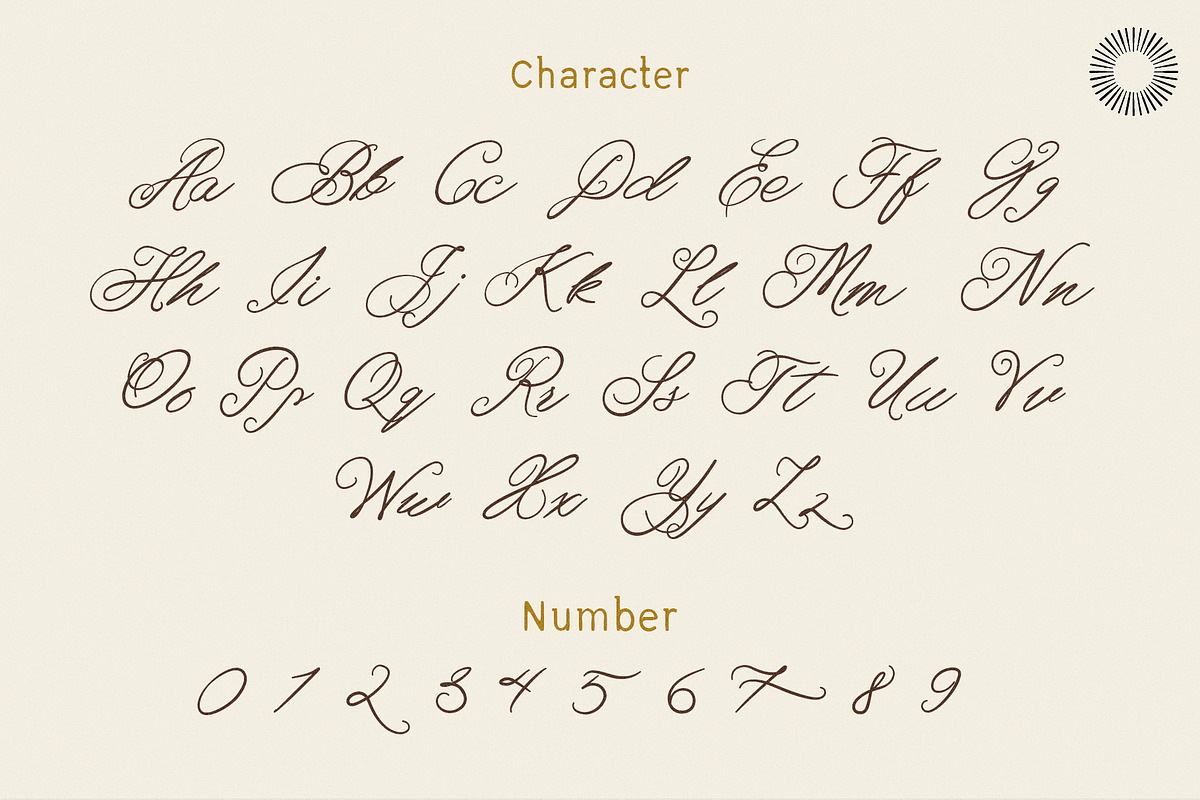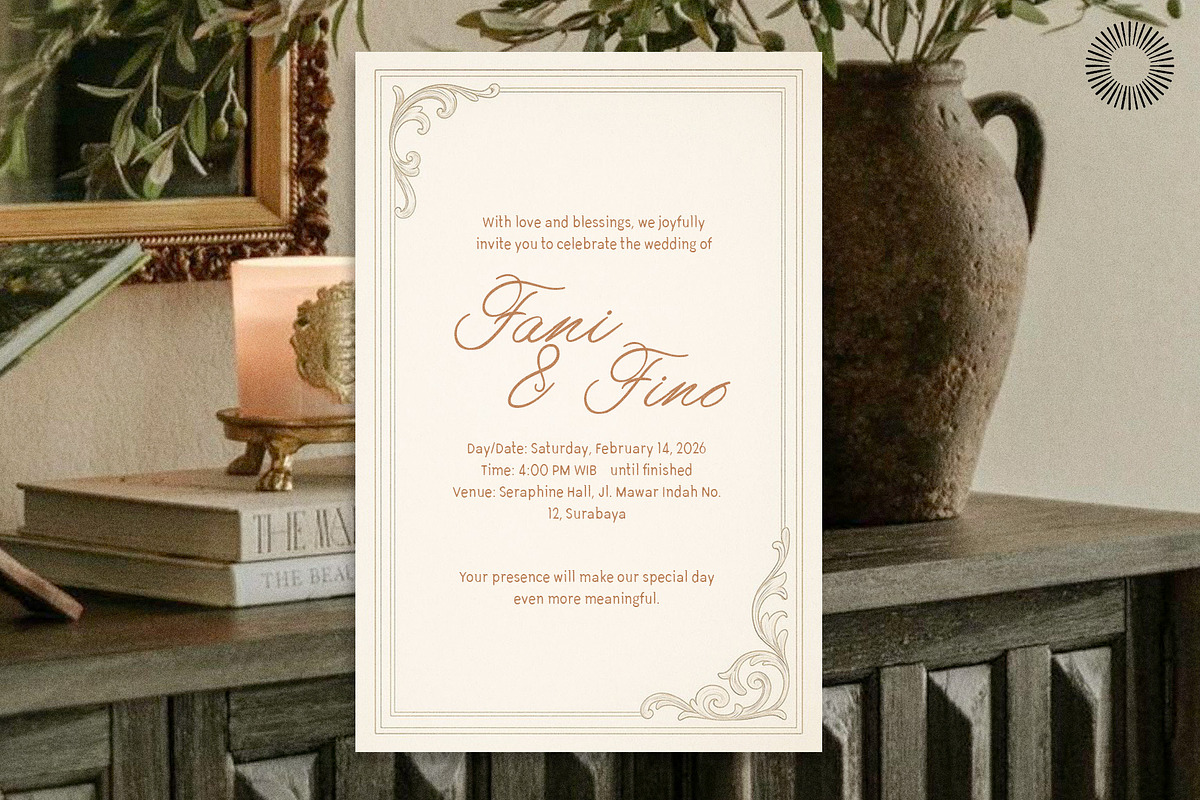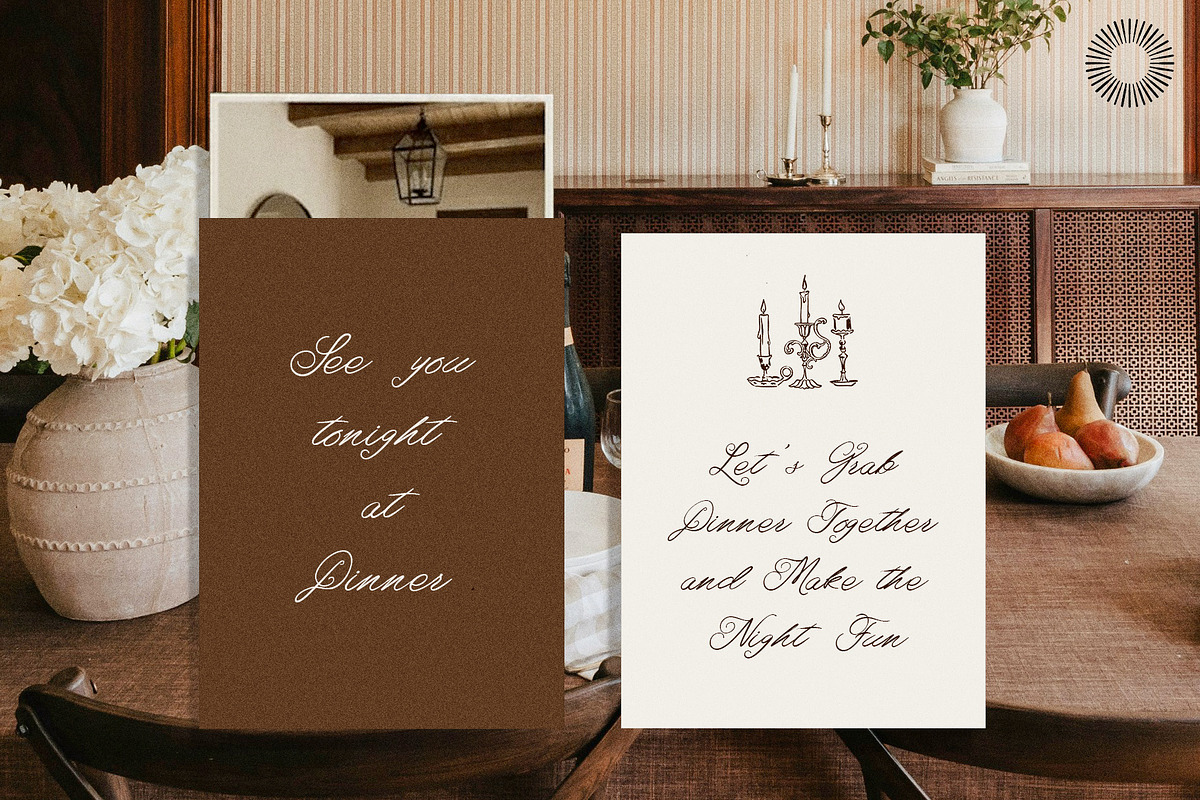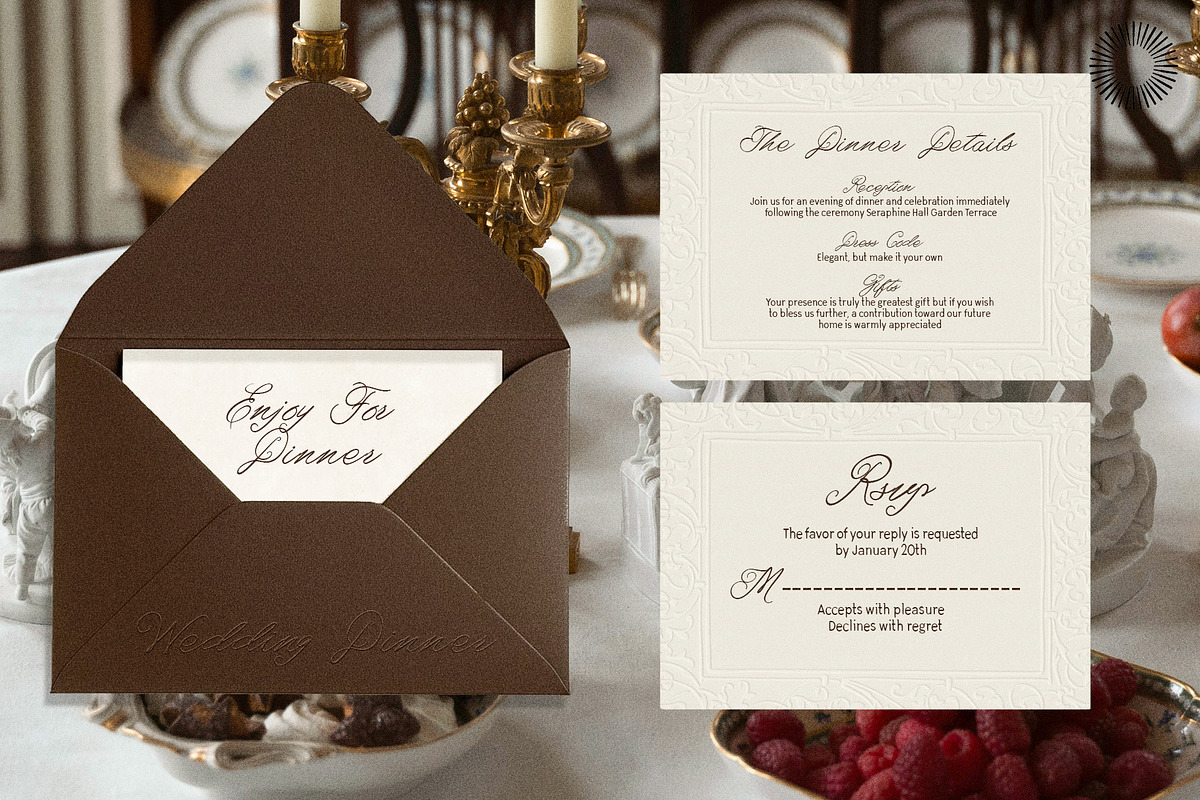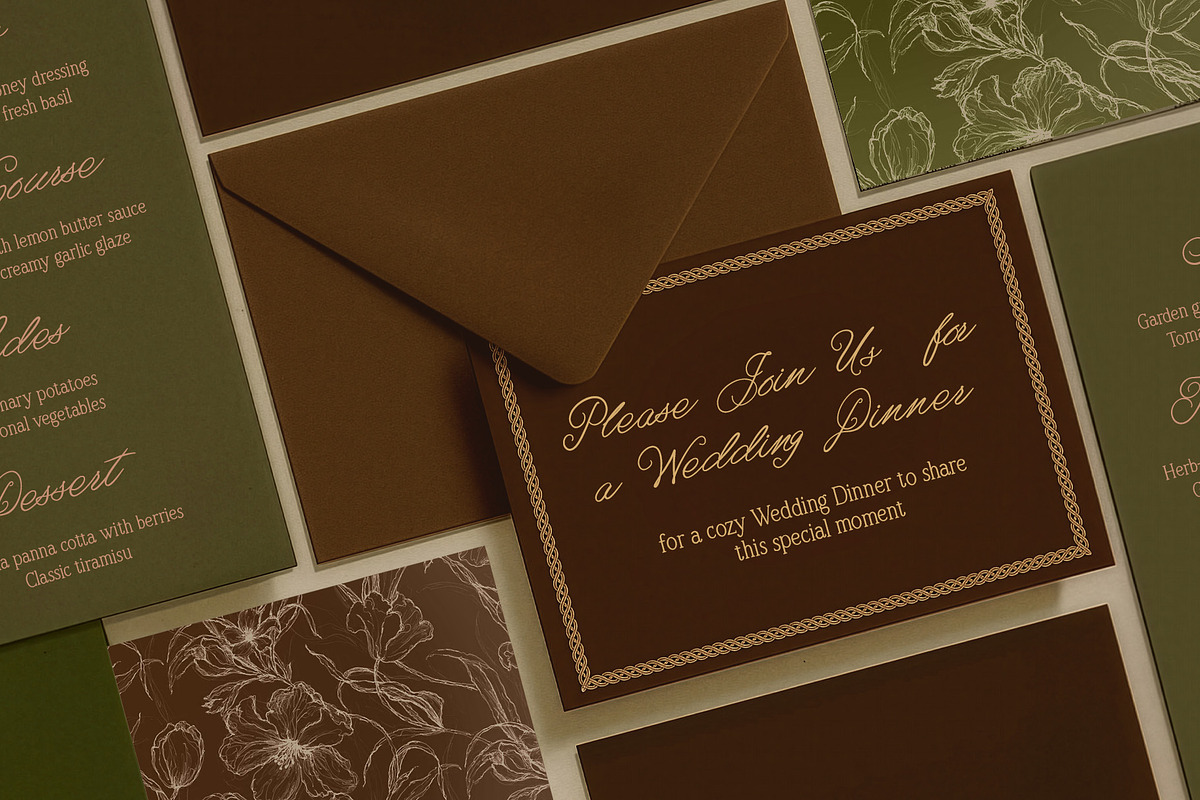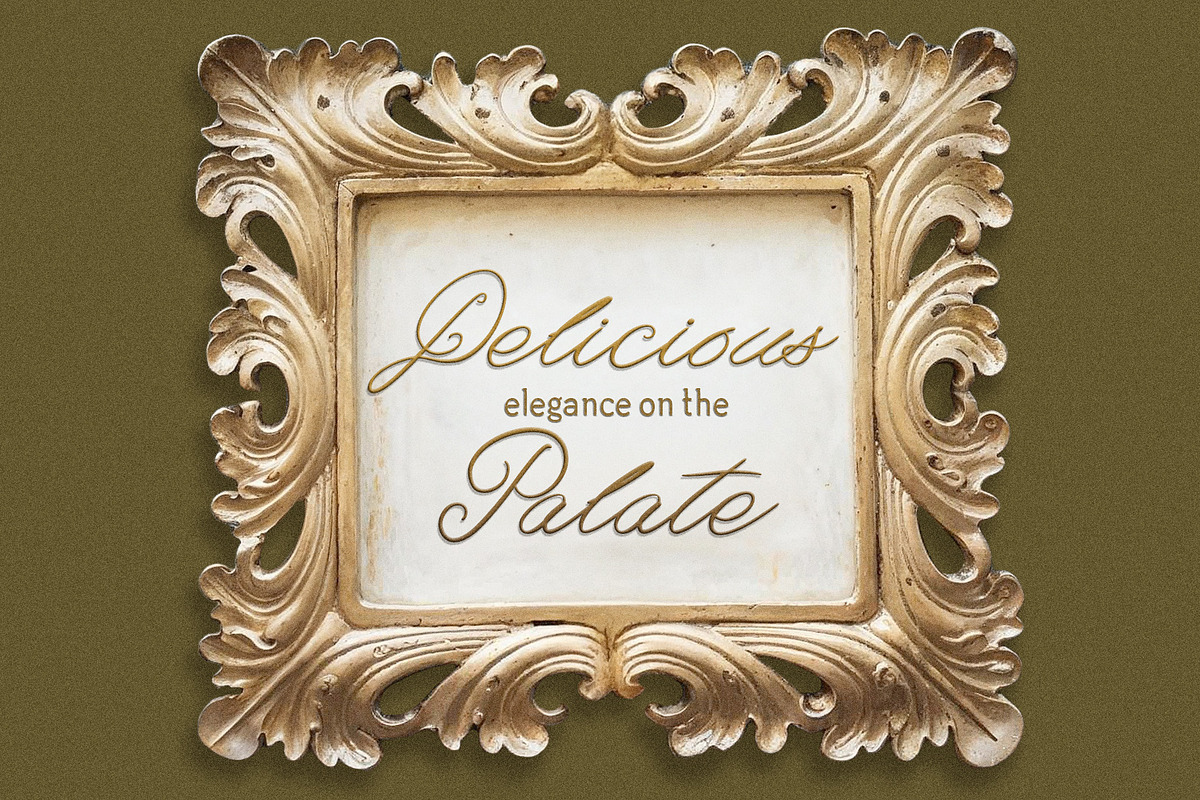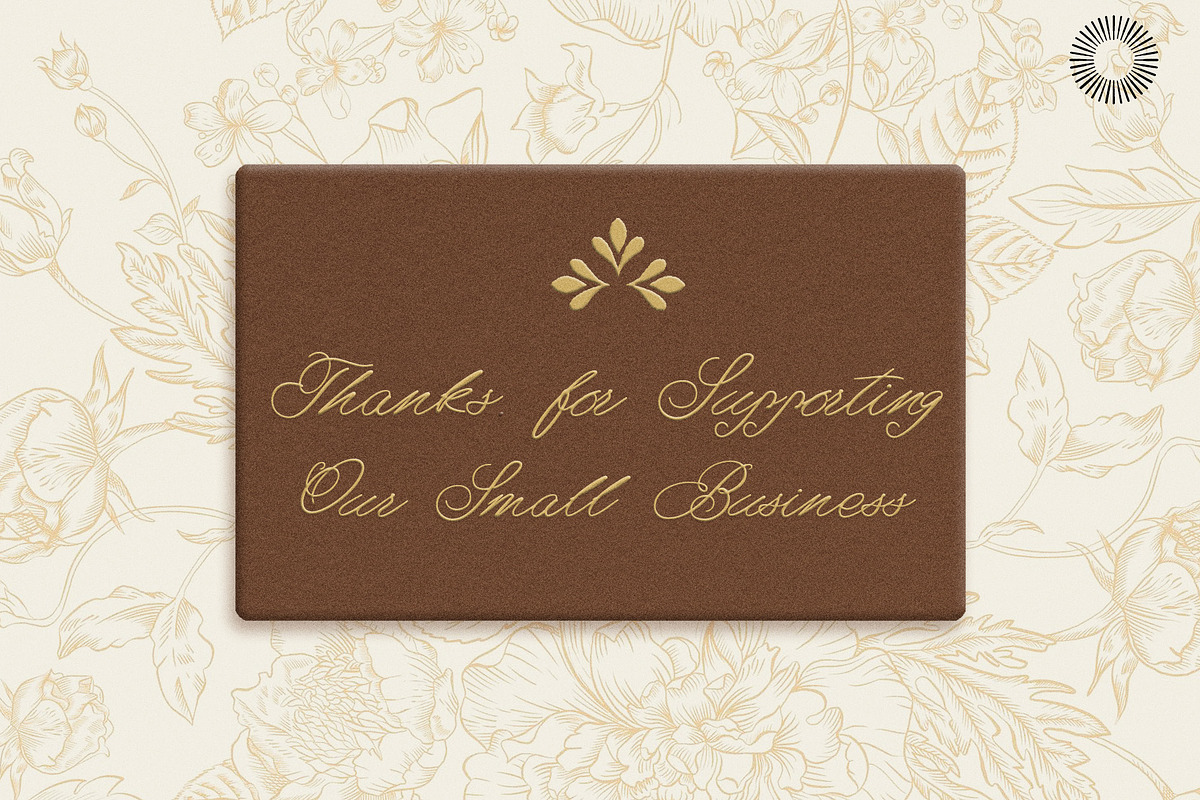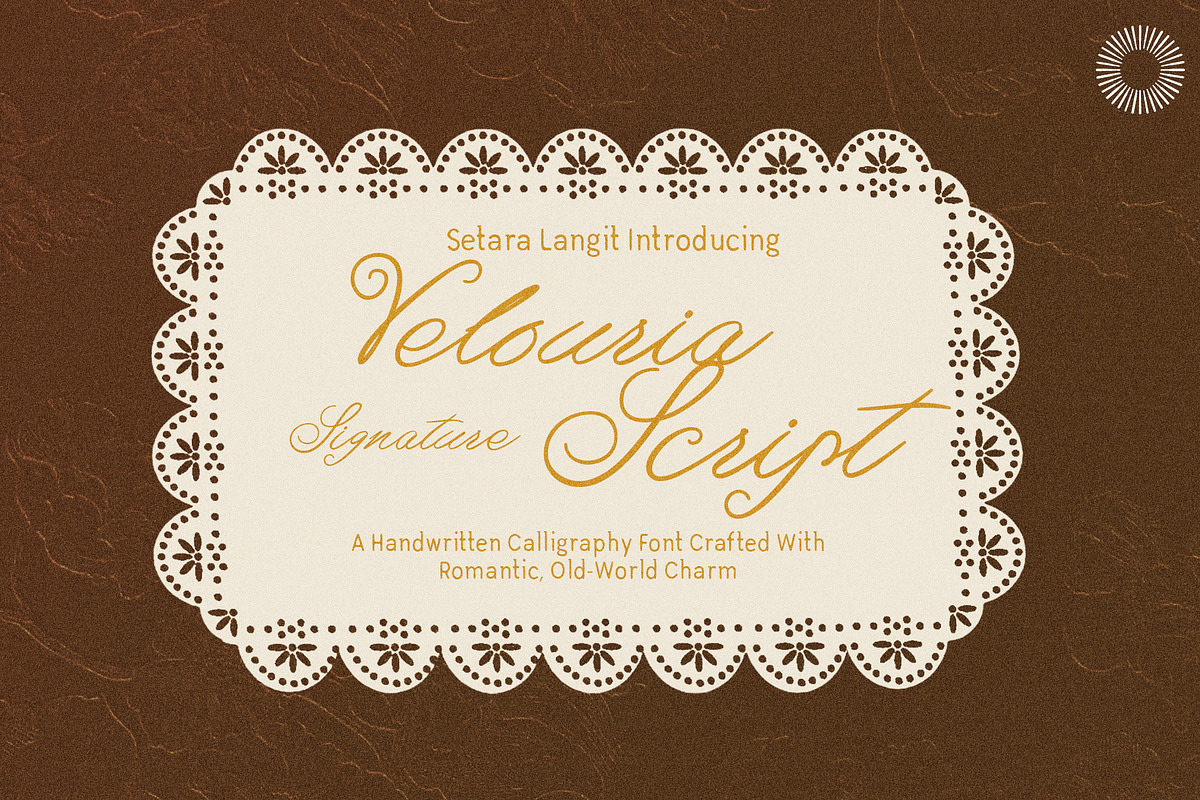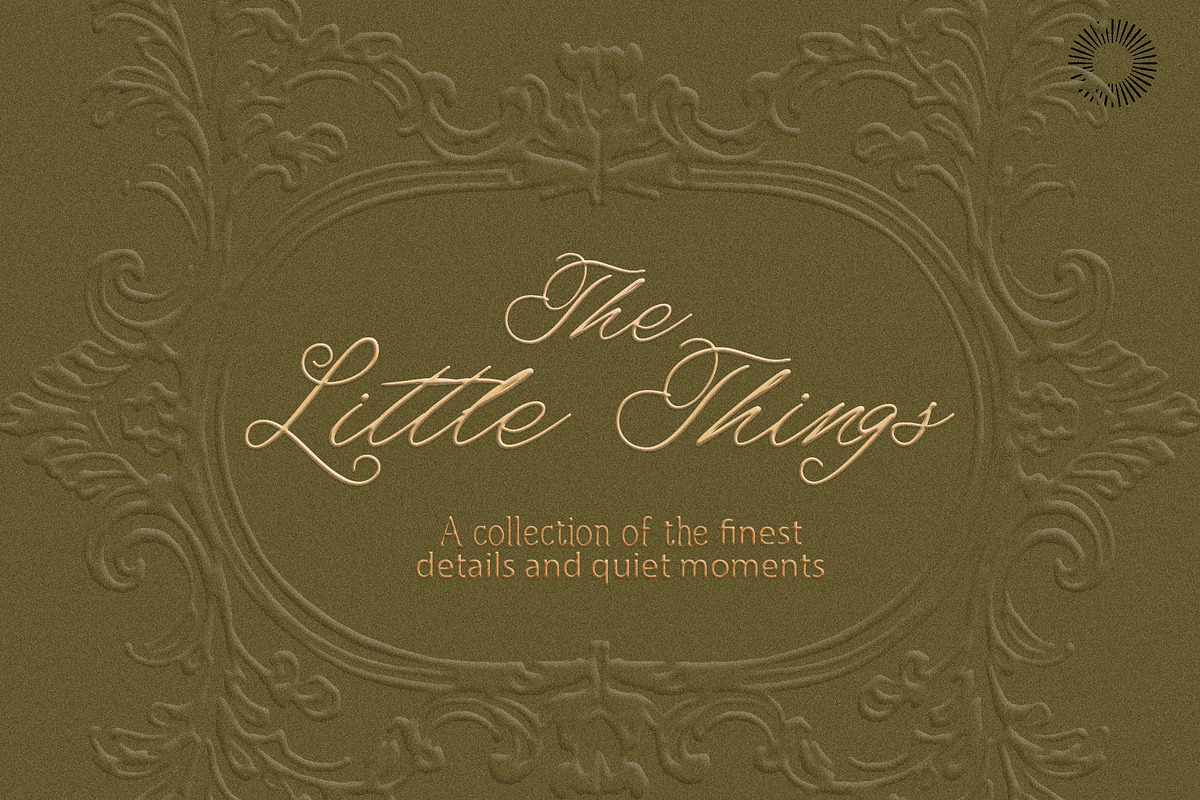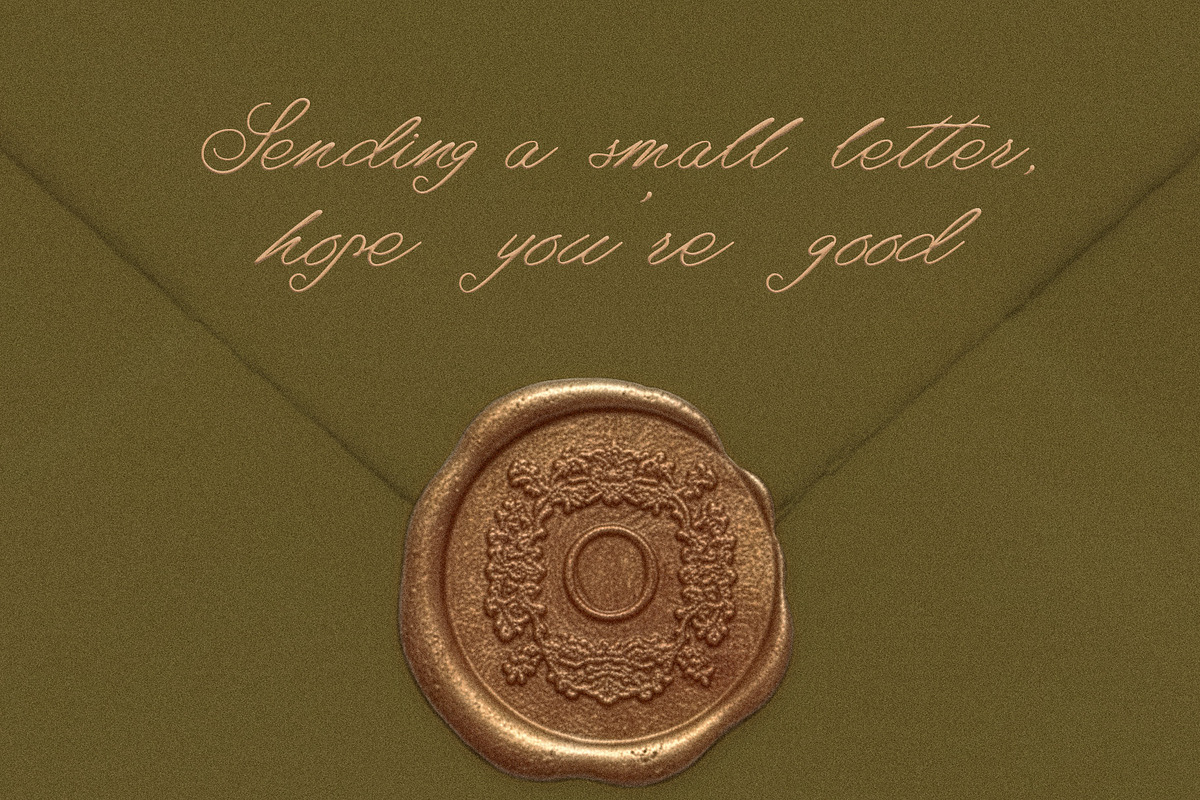
Velouria Script
Velouria Signature Script is a handwritten calligraphy font inspired by timeless romance and refined old-world elegance. Designed with flowing strokes, natural pressure contrast, and graceful swashes, Velouria captures the intimate beauty of a personal signature with a luxurious vintage soul. Each letterform is carefully drawn to feel organic, expressive, and smoothly connected, perfect for designs that demand warmth, authenticity, and sophistication. Velouria is not a rigid formal script; it leans into natural imperfections to keep your work feeling human and alive.
This font works beautifully for:
- Branding & logo design
- Wedding invitations & stationery
- Beauty, fashion & lifestyle packaging
- Editorial headlines
- Social media quotes & content
- Luxury product labels
- Numerals & punctuation
- Natural flowing connections
Velouria is best used when your project needs to feel romantic, classic, intimate, and premium—not generic, not stiff, and not overly modern. If you want your typography to whisper elegance instead of shouting trends, Velouria is designed for that exact purpose.